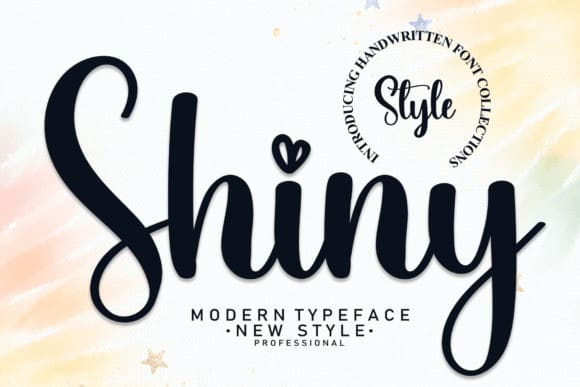
Shiny Script Font
Shiny Script Font, feels equally charming and elegant. It looks stunning on wedding invitations, thank you cards, quotes, greeting cards, logos, business cards, and every other design which needs a handwritten touch.